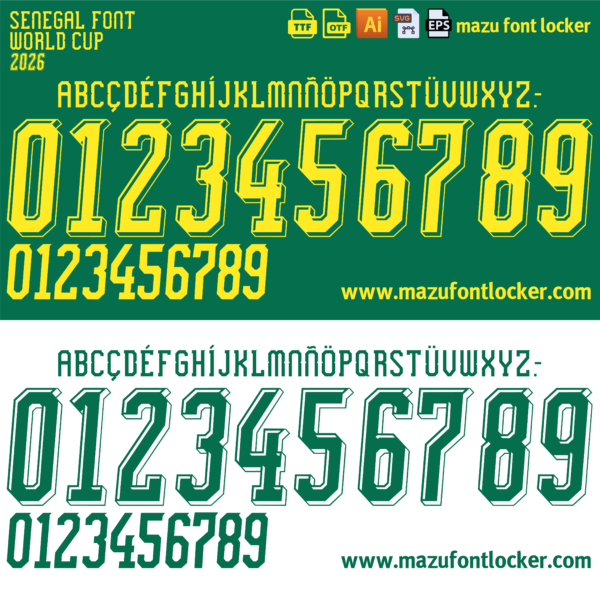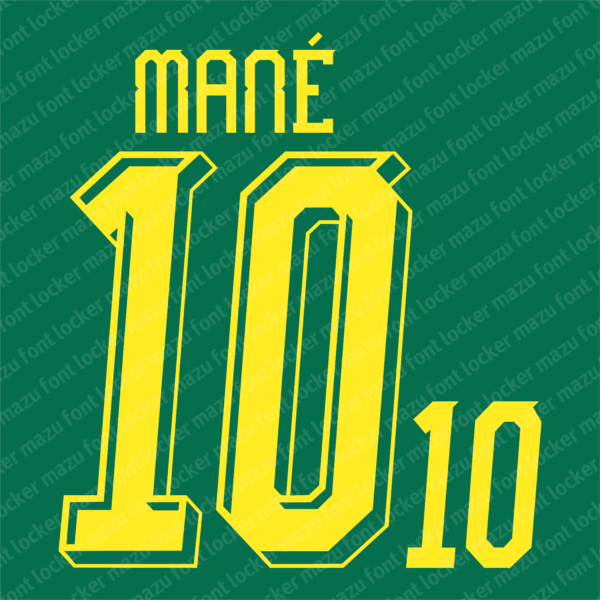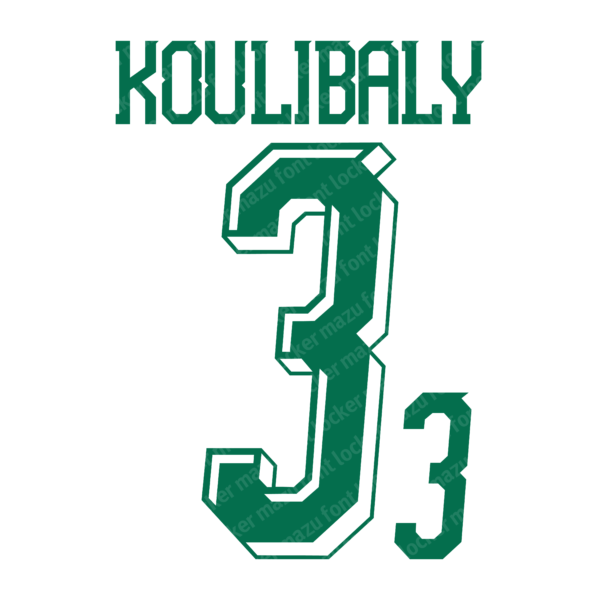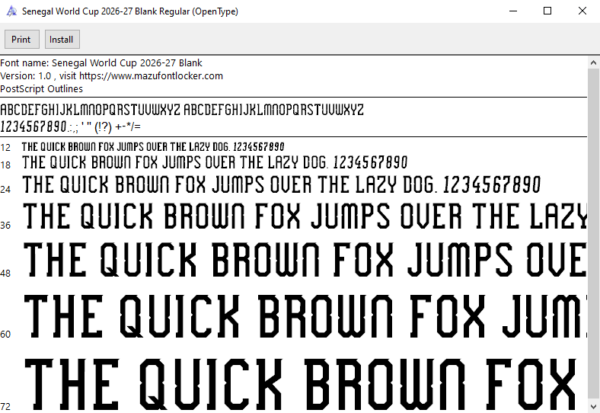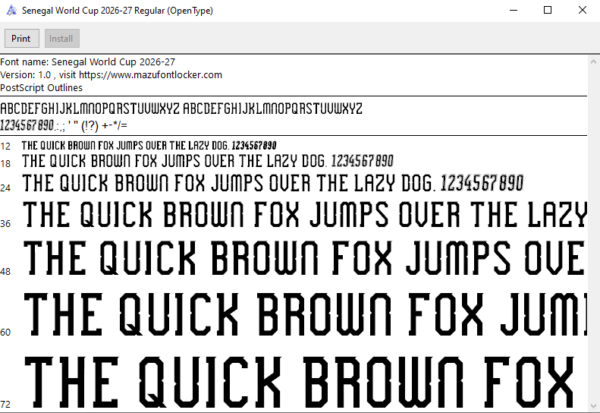
Senegal World Cup 2026 Font Vector – Bold African Power & Victory Vibes
Unleash the unstoppable spirit of the Lions of Teranga with the Senegal World Cup 2026 Font. This powerful, energetic typeface captures the passion, pride, and fierce determination of Senegal’s national football team as they charge towards the biggest stage in world football.
Designed with bold strokes, dynamic edges, and African-inspired flair, the Senegal World Cup 2026 Font delivers maximum impact for posters, social media graphics, t-shirts, jerseys, banners, and fan merchandise. Every letter radiates strength, speed, and victory — perfect for football clubs, sports brands, event organizers, and passionate Senegalese supporters.
Whether you’re creating hype for the World Cup qualifiers or celebrating the Teranga Lions, this font transforms your designs into powerful statements that resonate with fans across the globe. Stand out with authentic energy and cultural pride.
Senegal World Cup 2026 Font Vector
The Senegal World Cup 2026 Font is a premium, high-precision football jersey font vector meticulously engineered to capture the explosive boldness and commanding authority of Senegal’s legendary kits.
Inspired by the iconic Teranga Lions’ fighting spirit and their historic 2026 World Cup campaign, this font unleashes a fierce, dominant, and electrifying presence that radiates raw power, national pride, and unstoppable African passion. Every letter and number has been painstakingly recreated with razor-sharp precision to embody the aggressive, fearless, and majestic aesthetic that made Senegal one of the most feared teams on the planet.
🔥 Senegal World Cup 2026 Font Features
- Authentic World Cup 2026 Senegal jersey lettering style
The authentic lettering style helps recreate the classic look of the Senegal World Cup 2026 kit with professional accuracy.
Unlike generic jersey fonts, this set is designed with a strong focus on authenticity and accuracy. Every detail is based on the original match lettering style used during the World Cup 2026, helping designers and collectors create realistic football shirt designs.
This Senegal World Cup 2026 font vector set is designed for authentic football jersey customization and works perfectly for retro football projects, collector designs, and professional sportswear artwork.